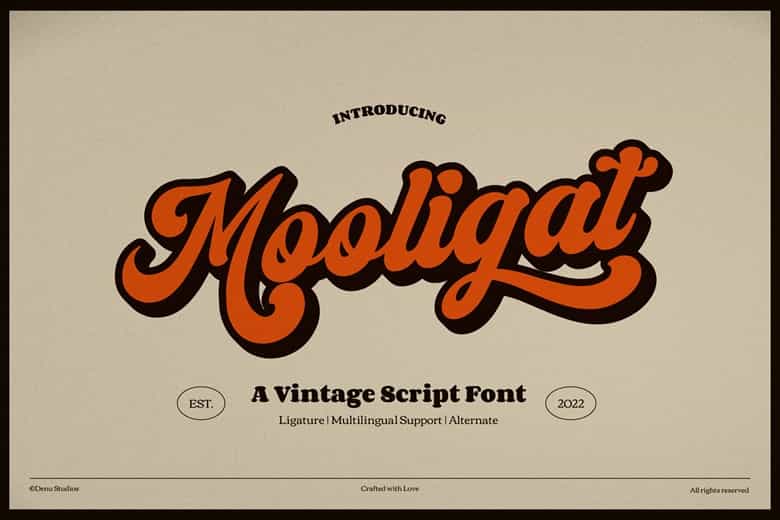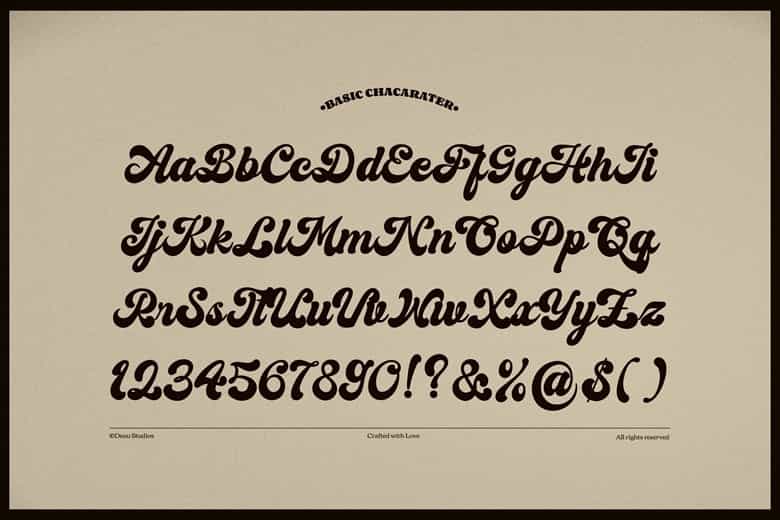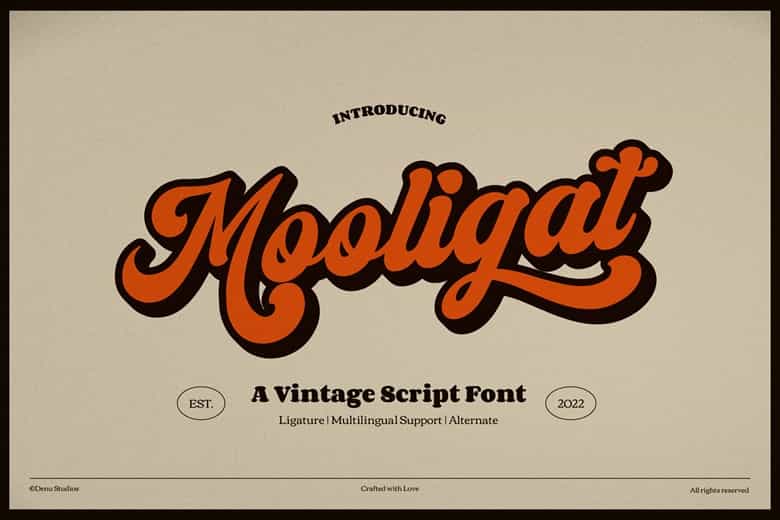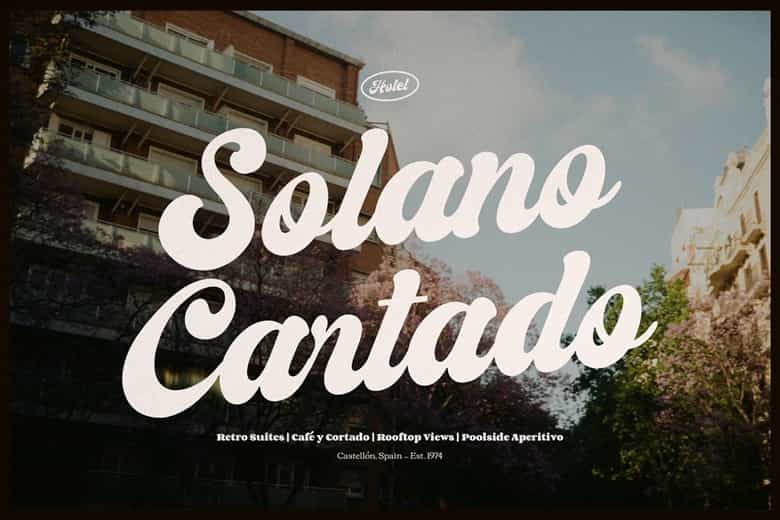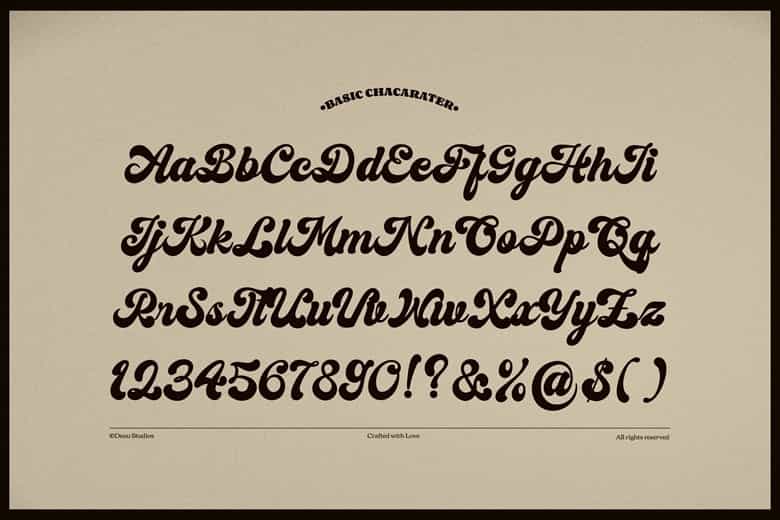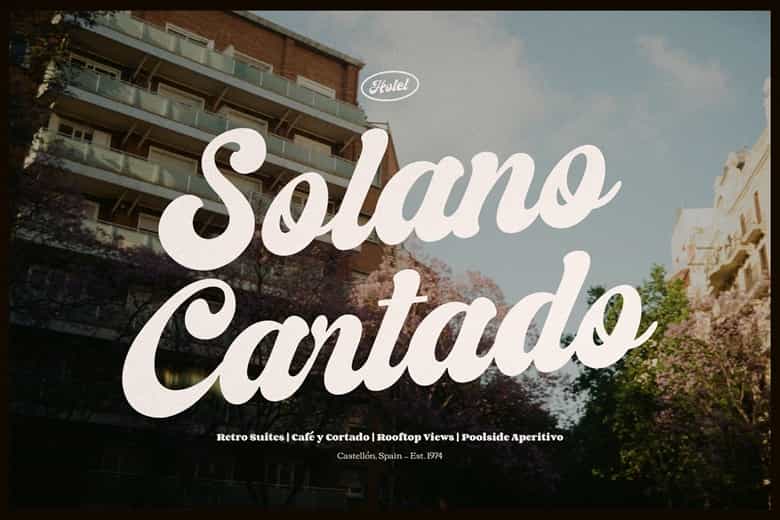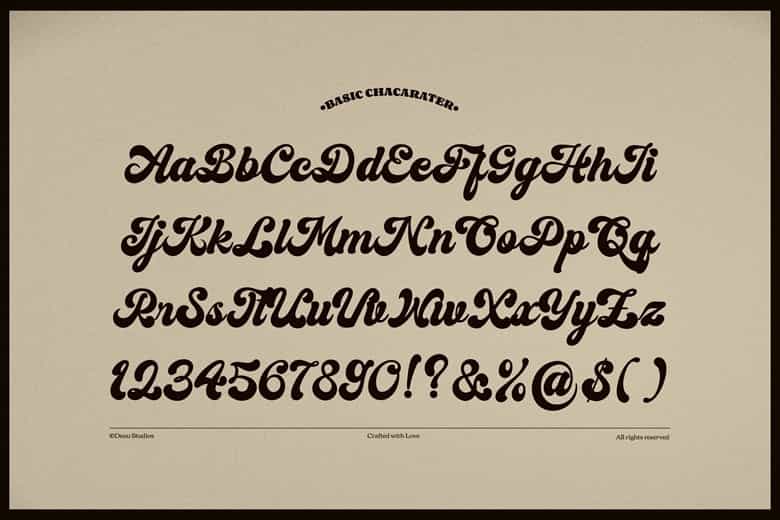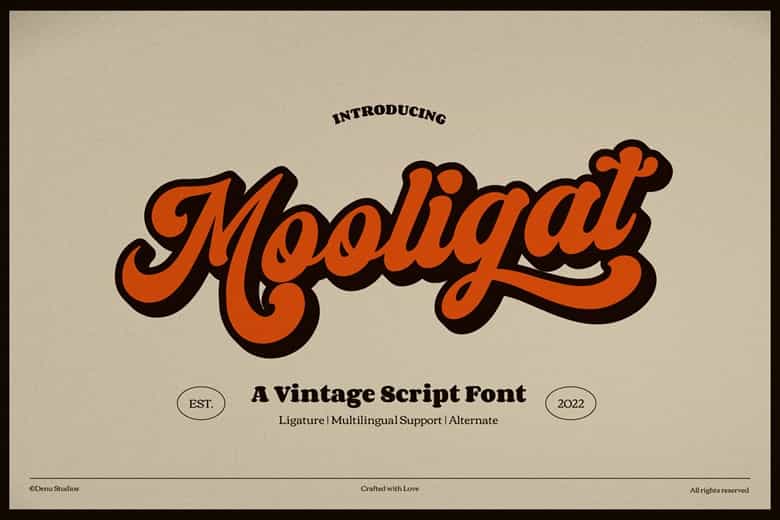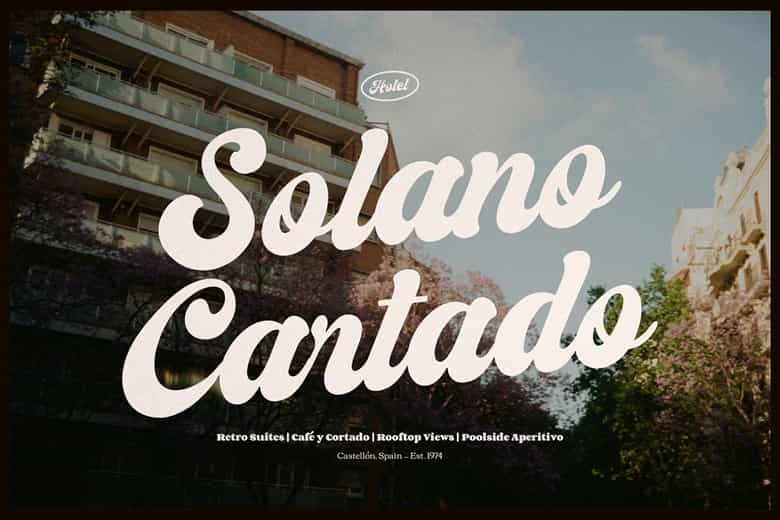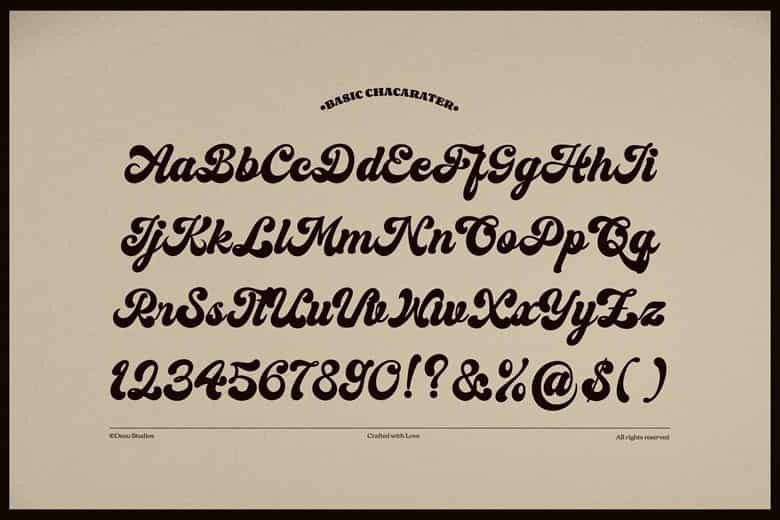
Mooligat is a retro script font with a vintage feel and contemporary flexibility. Filled with sleek curves and playful swashes, as well as a dramatic shadowed feel, it is ideal for logos, branding, packaging, and other designs where a nostalgic but commanding appearance is required.